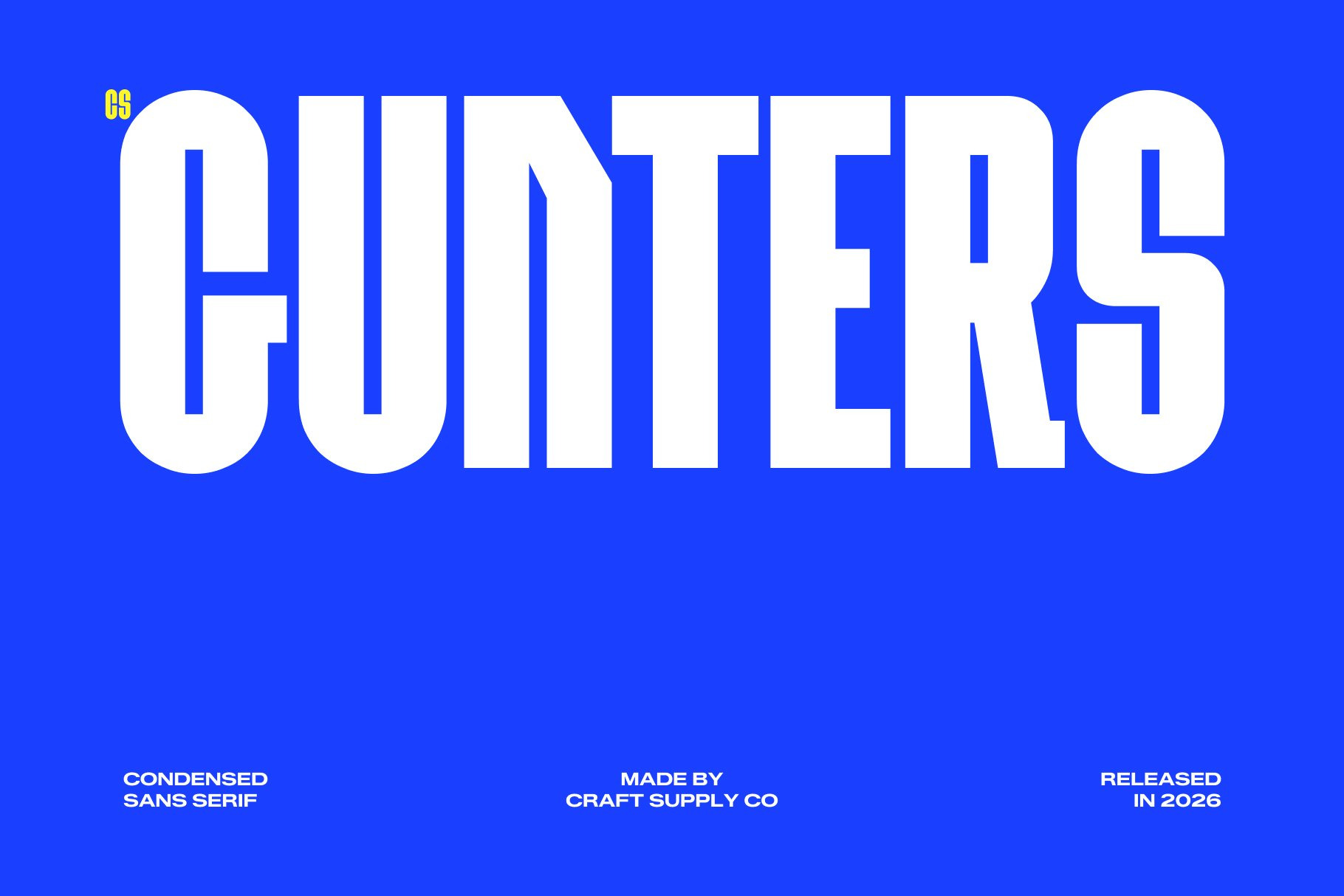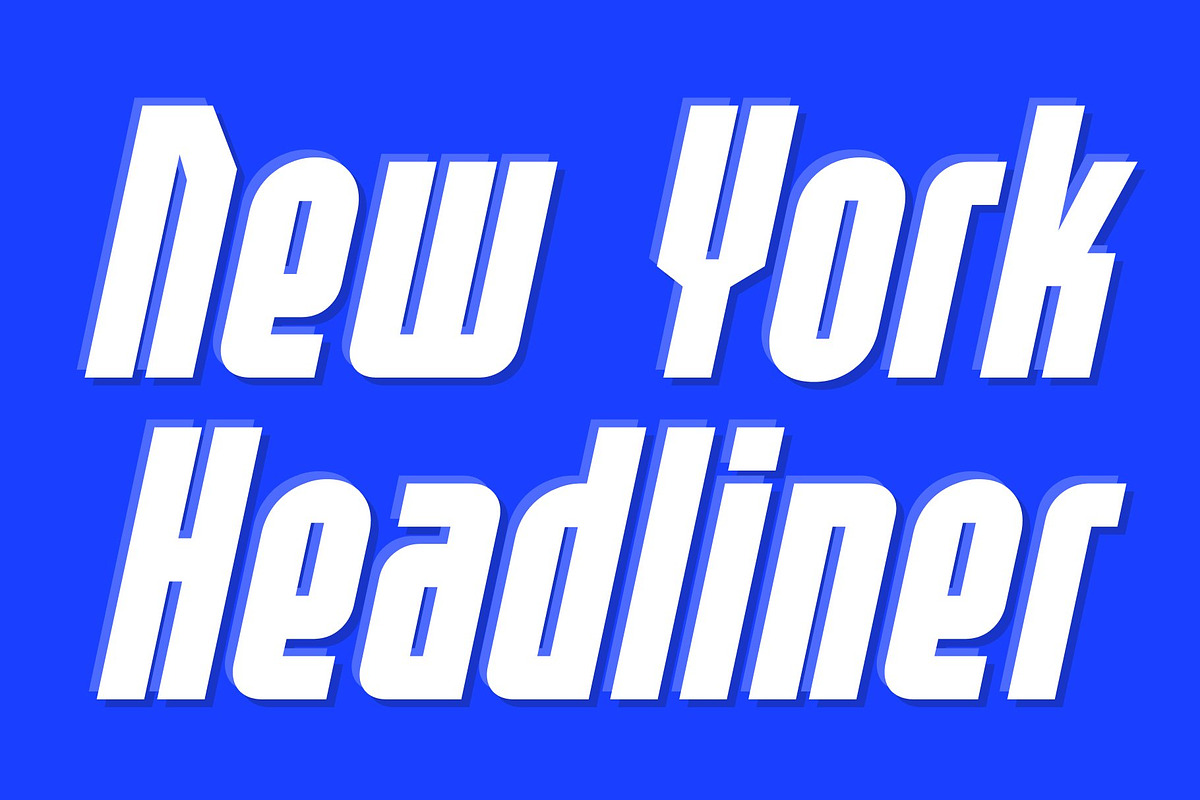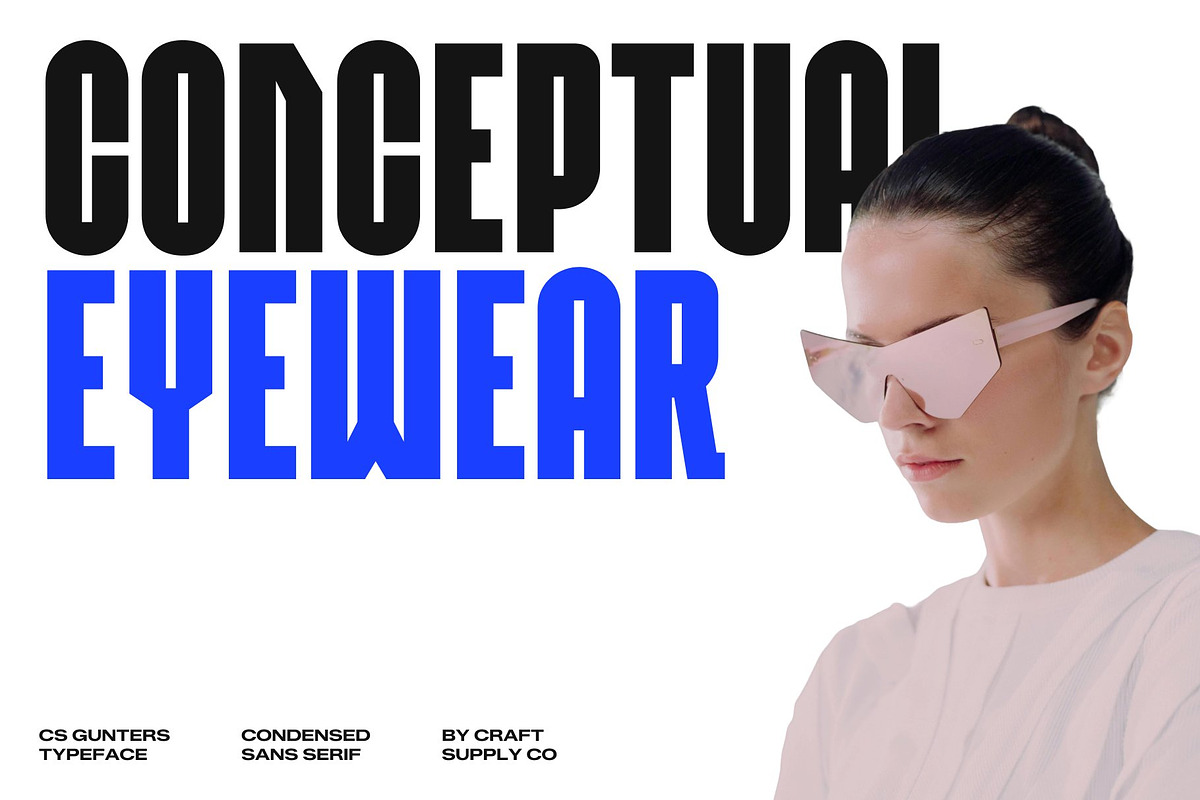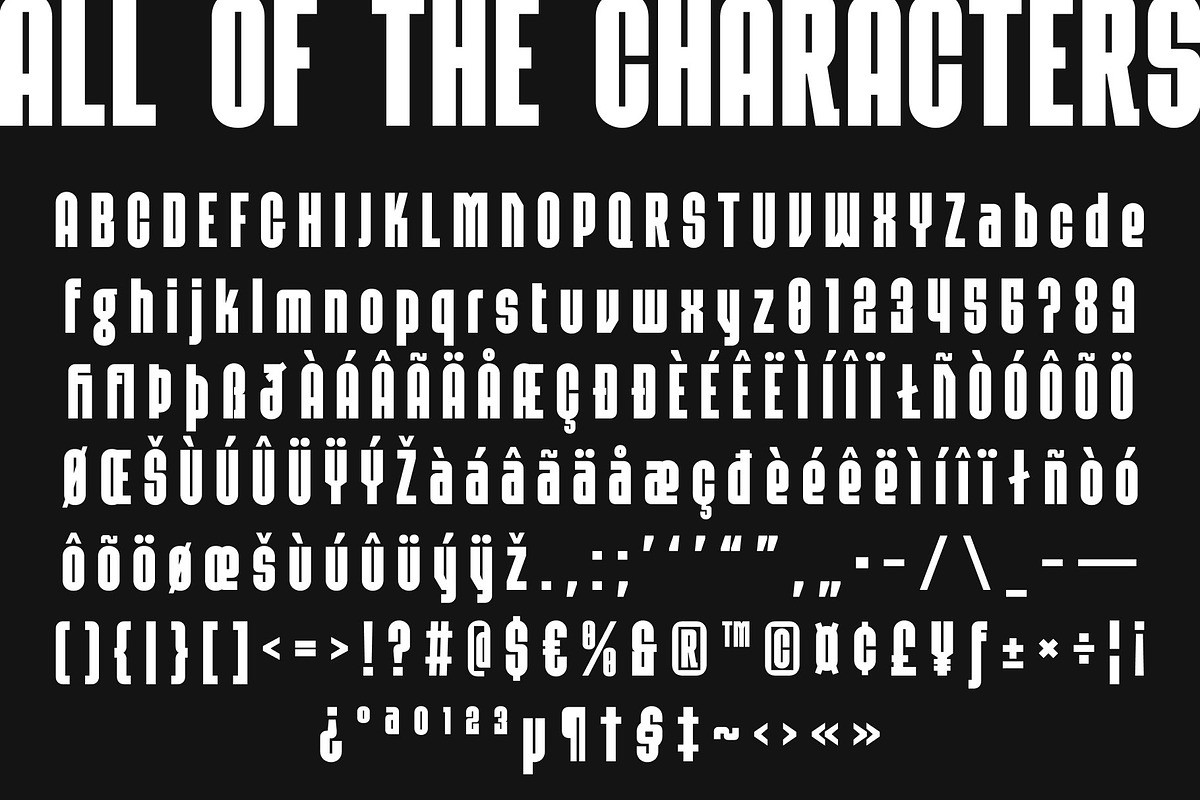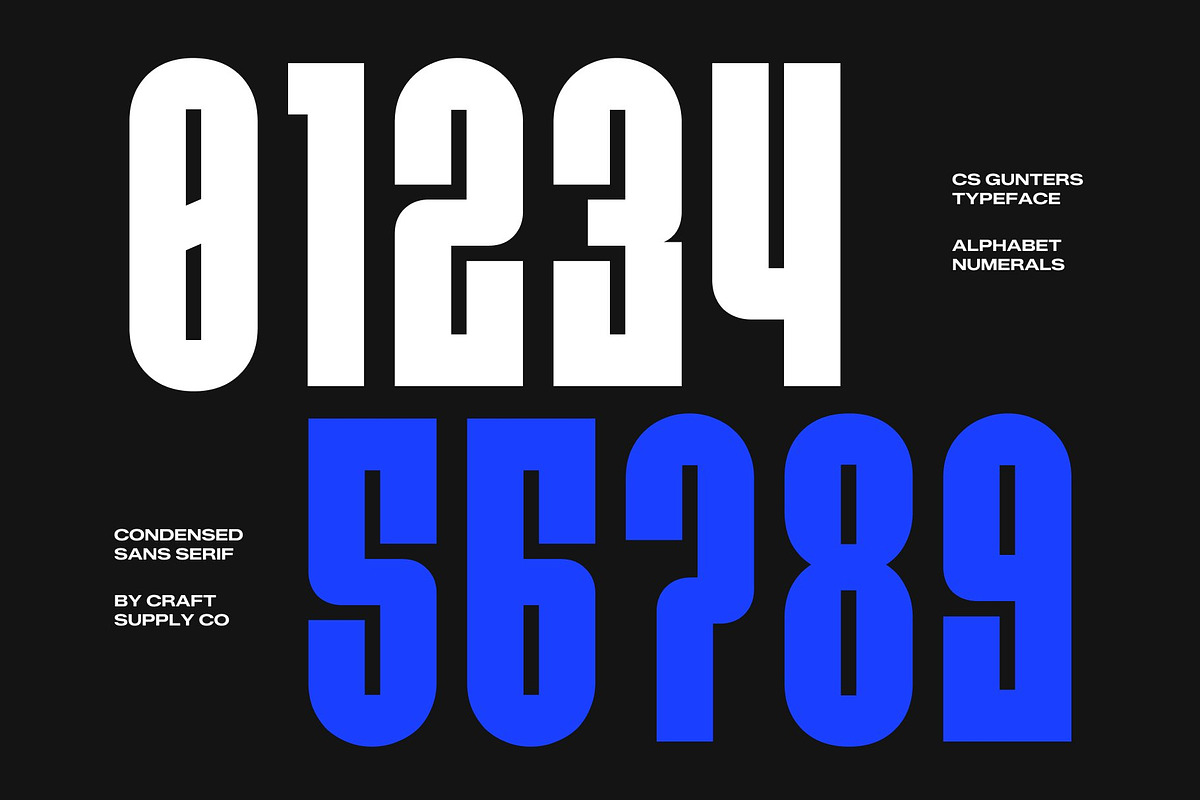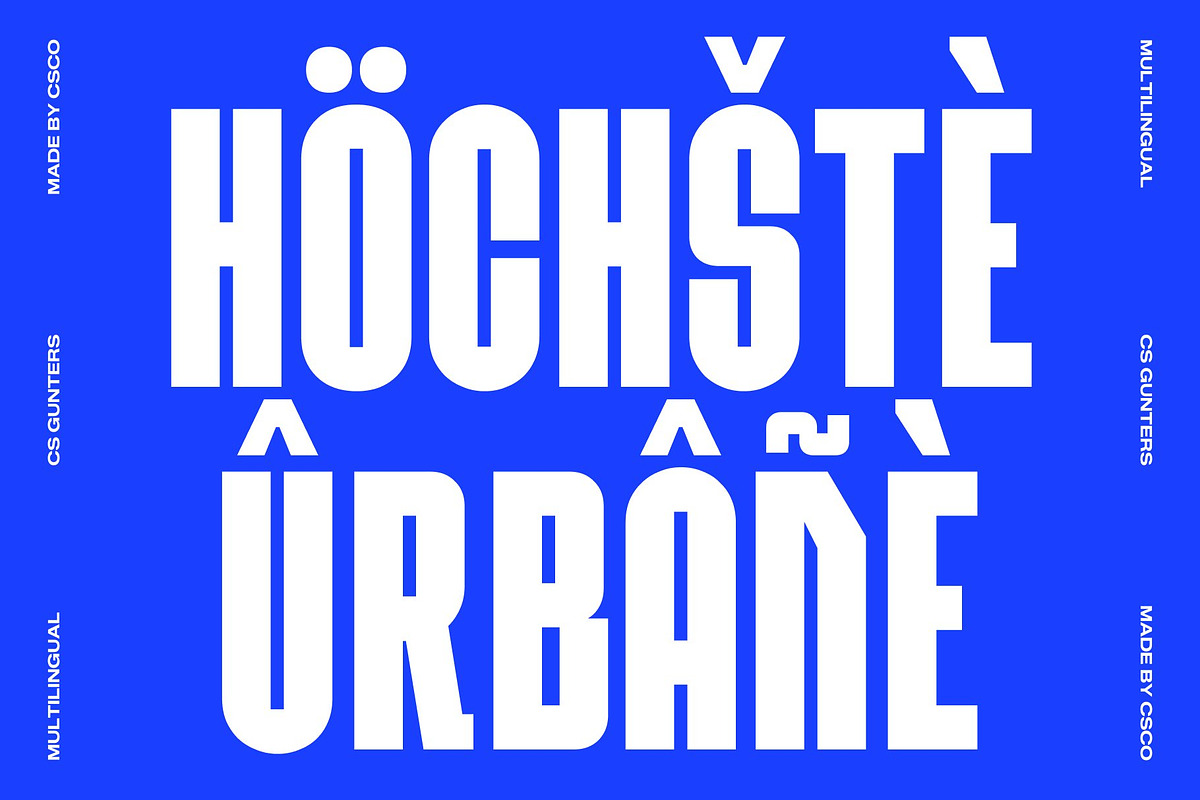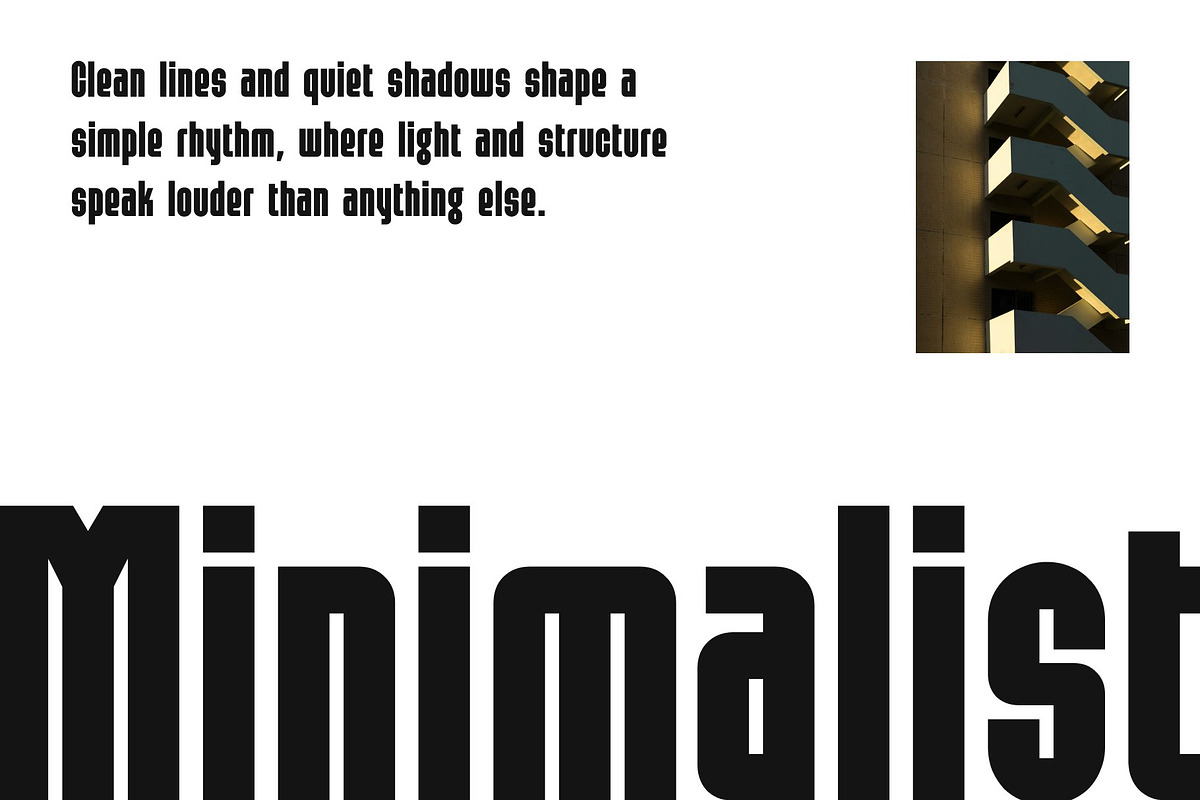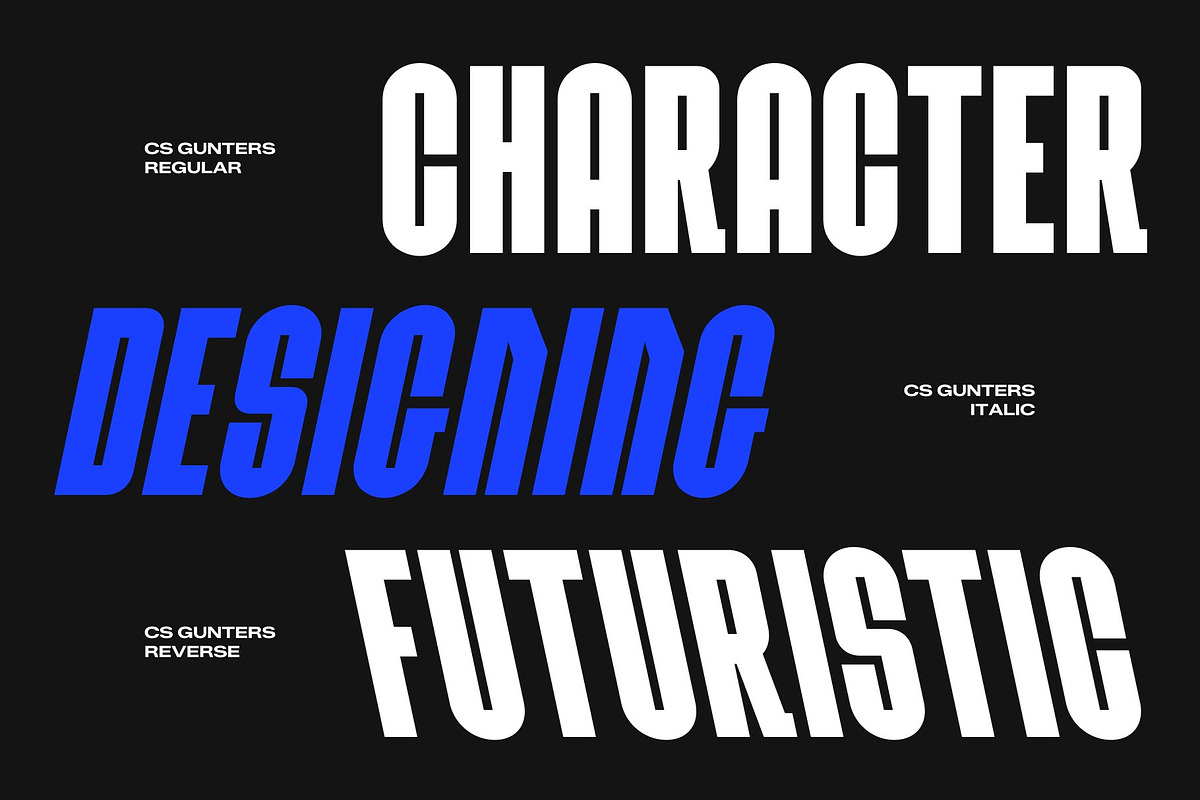
CS Gunters – Condensed Font
CS Gunters – Modern Condensed Display Font with Industrial Strength
Modern Condensed Display Font with Bold Industrial Character This is a modern condensed display font designed to deliver powerful visual impact in tight spaces. Built with strong structure and an industrial-inspired personality, this typeface combines bold presence with clean readability. It is crafted for designers who need typography that feels solid, confident, and unmistakably modern.
Optimized for Tight Layouts and Strong Headlines The condensed proportions allow more text to fit into narrow compositions without losing clarity or balance. Each letterform is engineered to appear tall, compact, and highly legible, making this font ideal for headlines, posters, and branding that demand immediate attention. This efficiency ensures your message remains bold and visible in any layout.
Industrial Edge with Clean Geometry This font features sturdy strokes and precise shapes that create a strong, mechanical aesthetic. The industrial tone gives the font a masculine and confident feel, while its clean design keeps it versatile and modern. This balance makes it suitable for both bold graphic work and contemporary branding.
Perfect for Headlines, Posters, and Branding From impactful posters and advertising to strong brand identities and digital campaigns, this font adapts effortlessly to a wide range of creative projects. Its combination of readability, compact efficiency, and industrial boldness ensures your typography feels powerful, professional, and memorable.
CS Gunters Regular
CS Gunters Italic
CS Gunters Reverse Italic